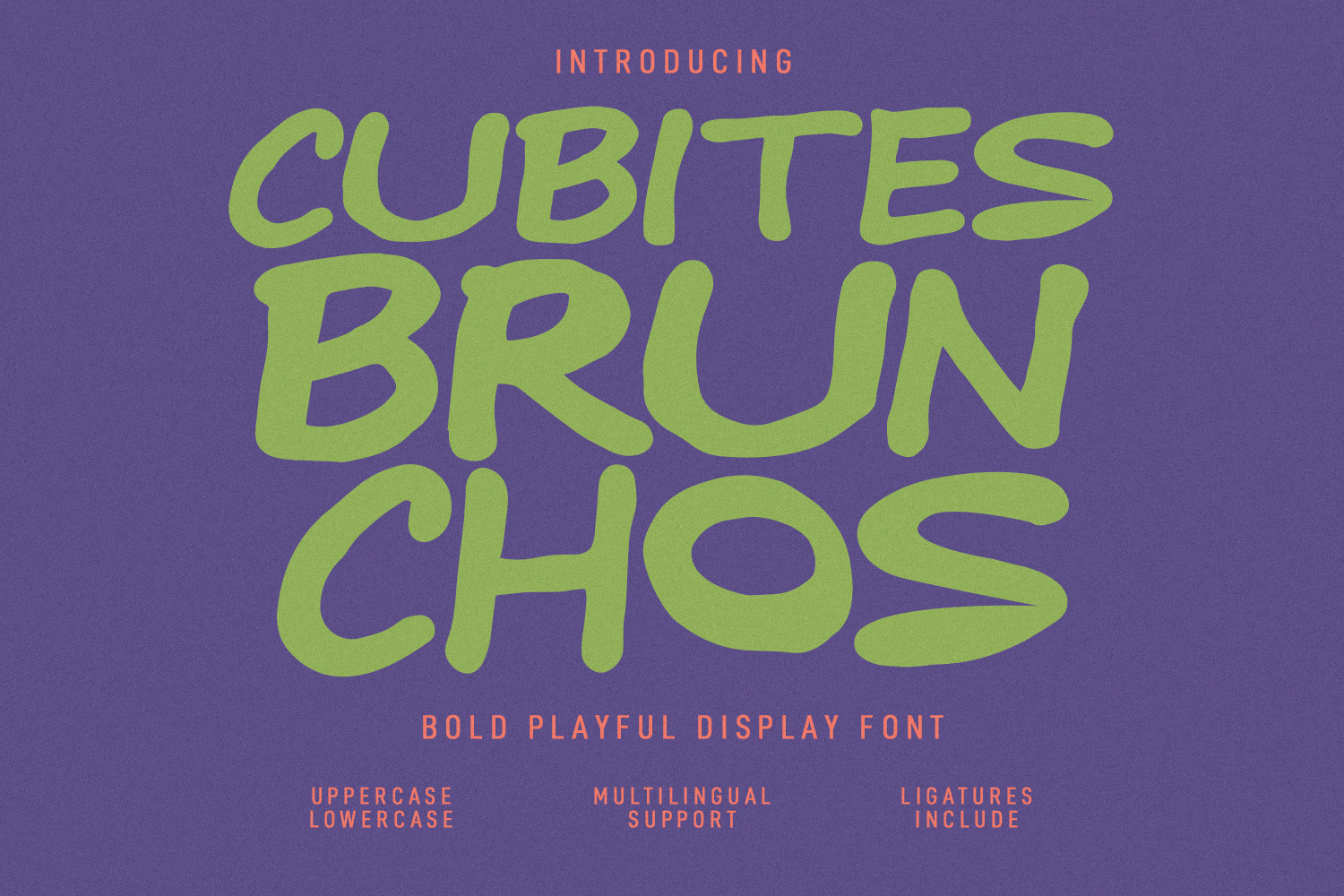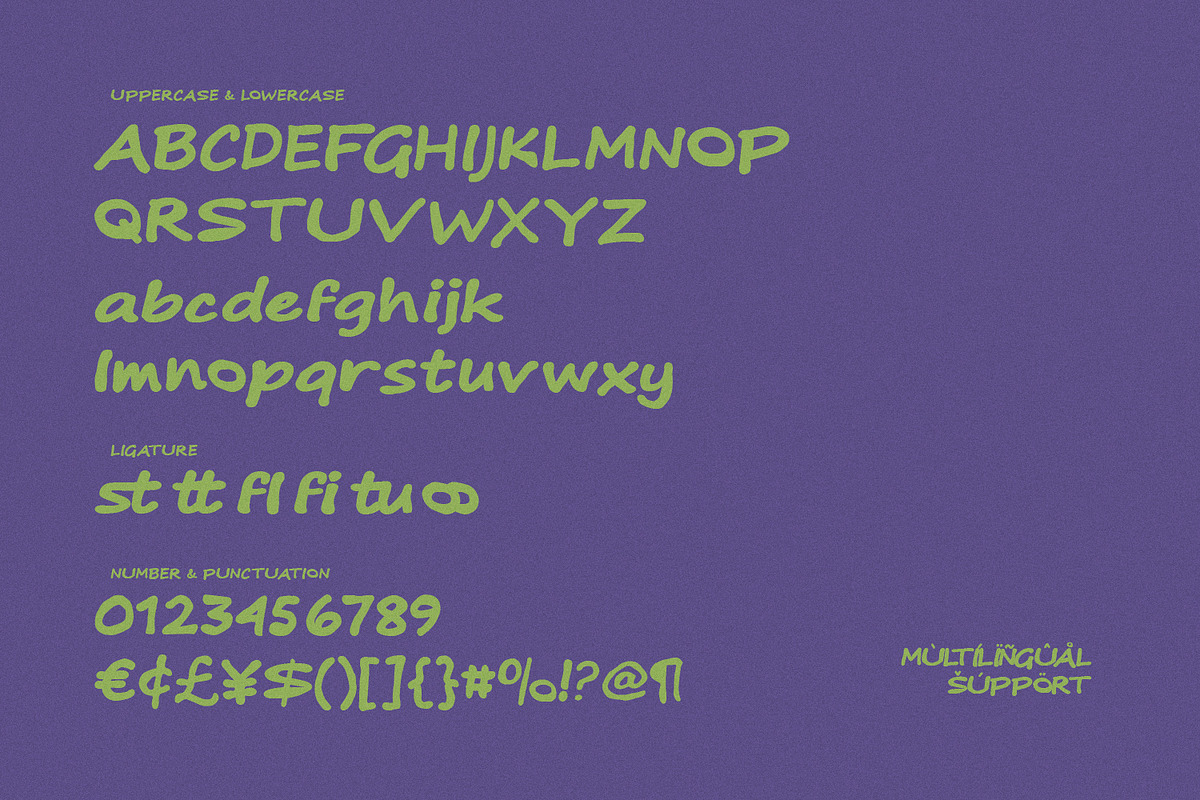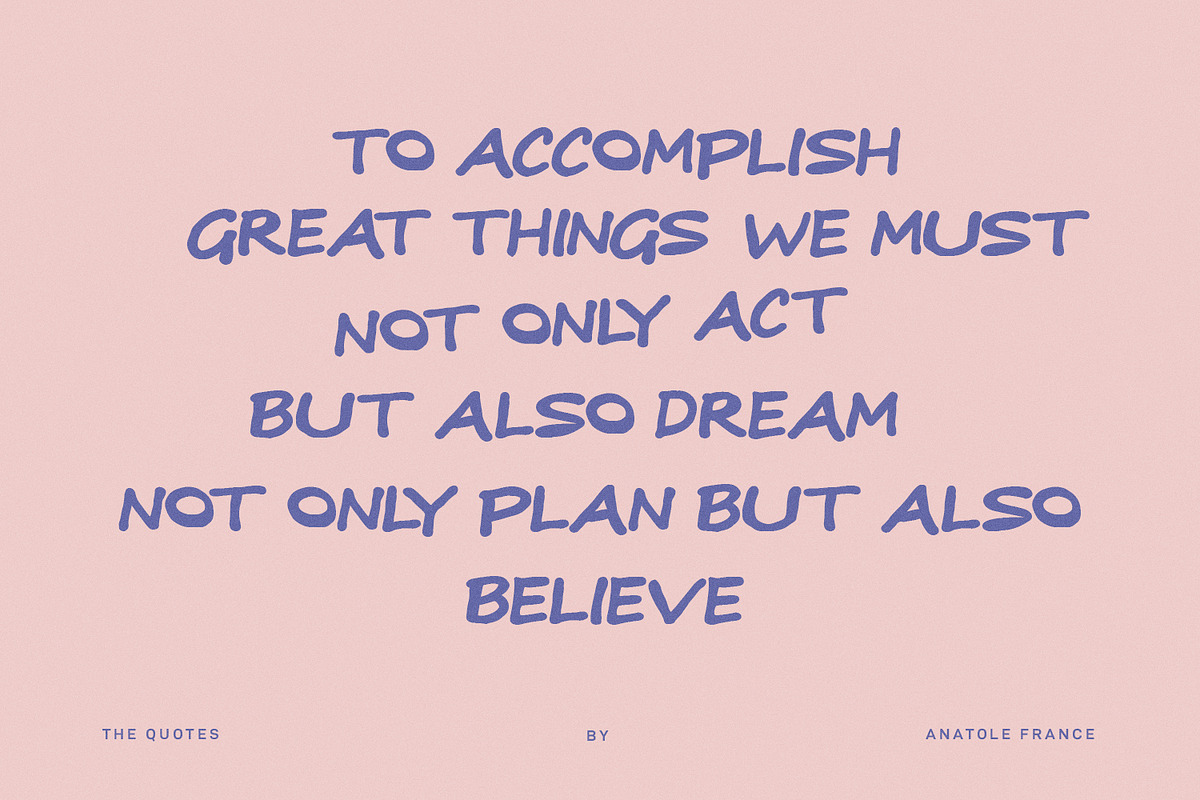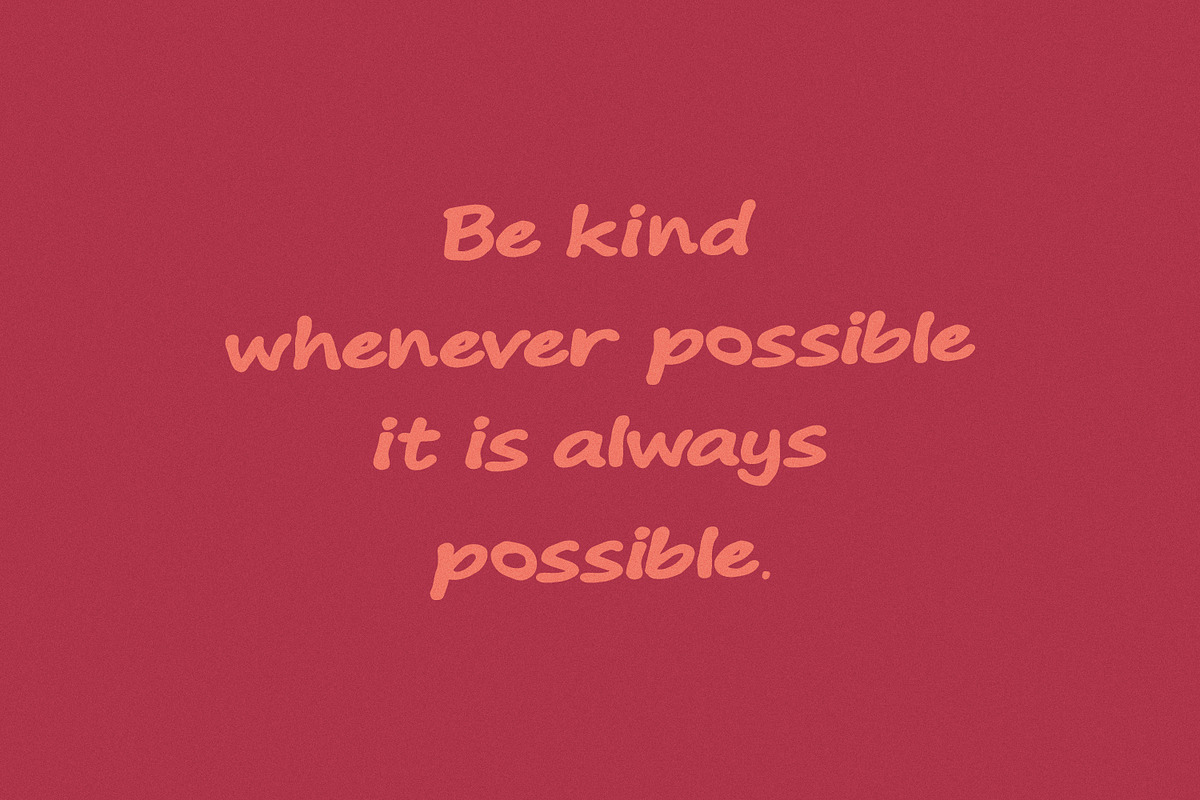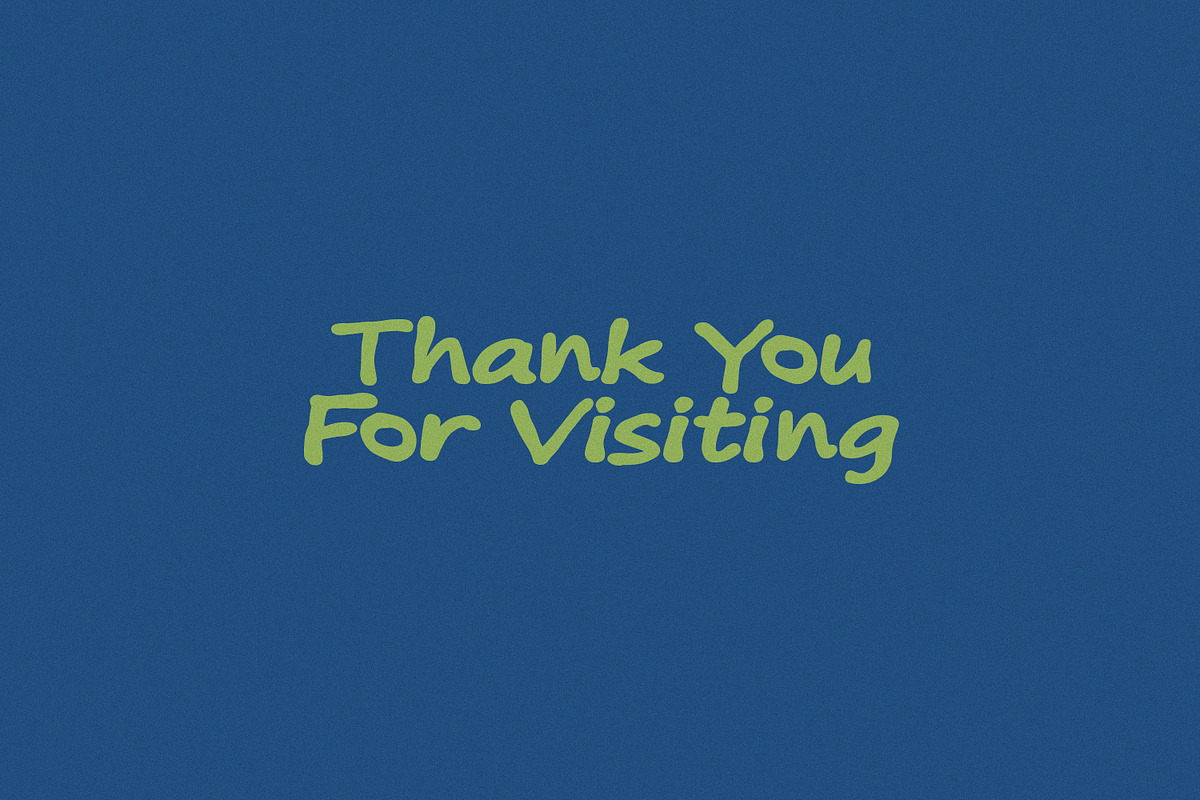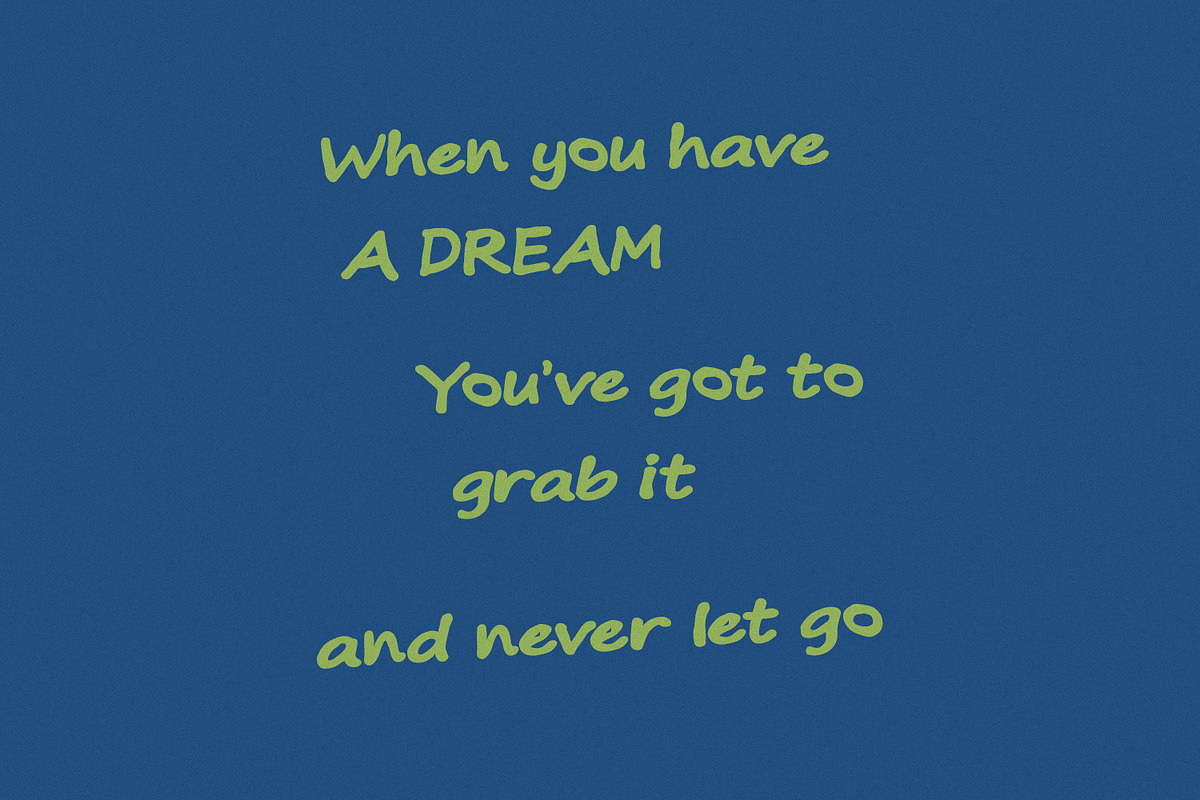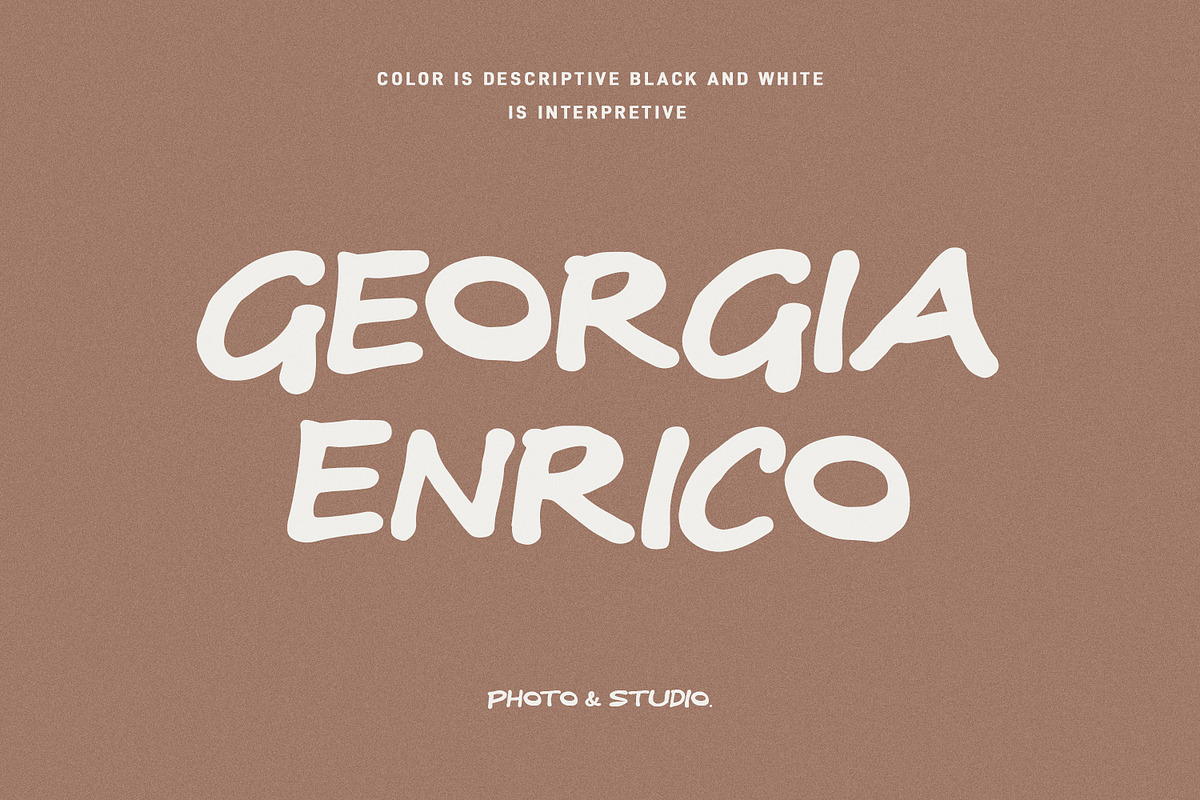
Cubites Brunchos Playful Font
Cubites Brunchos is a vibrant, chunky, and fun display font designed to bring an instant dose of joy and creativity to any visual project. Featuring heavy, hand-drawn letterforms with smooth curves and a relaxed energy, this typeface excels at making bold statements. Its cheerful aesthetic is ideal for eye-catching logos, playful packaging design, food and beverage branding, children's books, poster layouts, and social media graphics that demand immediate attention.
Equipped with uppercase, lowercase, numbers, punctuation, unique ligatures, and broad multilingual support, Cubites Brunchos offers complete versatility for diverse creative applications. The smooth, organic edges create an approachable vibe while maintaining high legibility across both digital displays and physical mediums. Whether crafted for advertising campaigns, creative headlines, or event invitations, this font adds an unforgettable touch of fun to every composition.
- Ligature for a natural handwriting flow